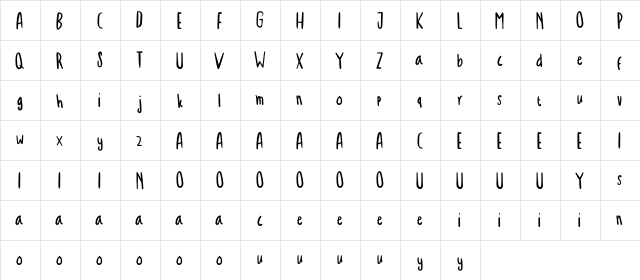
Troficanos Regular
| Designer | Holis Majid |
Design Context for Troficanos Typeface
Troficanos is a composed and adaptable typeface that performs quietly and consistently across a wide range of design contexts.